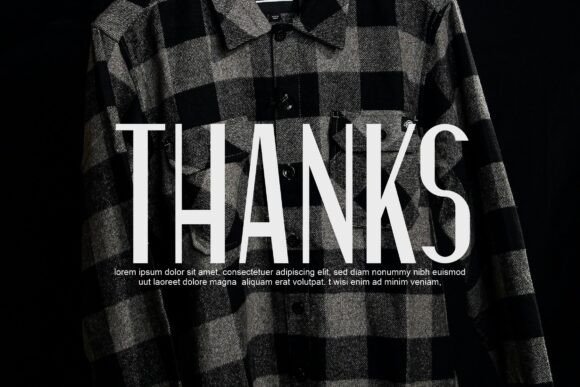
Introduction to Jorgin Font
Have you ever stared at a blank design canvas, searching for the perfect font to elevate your creative project? For designers, finding that one special font can make all the difference between a good design and a great one. It’s that moment when everything comes together, and your idea shines through with clarity and style.
That’s where the Jorgin Font comes in – a sleek, high-impact sans serif font that’s sure to command attention and leave a lasting impression. With its bold personality, tall, condensed letterforms, and geometric precision, Jorgin Font brings a contemporary sophistication to any design. Whether you’re working on a fashion branding project, creating an editorial, or designing promotional posters, Jorgin Font is the perfect design resource to take your creative vision to the next level.
Key Features of Jorgin Font
- High-quality design: Jorgin Font is a premium font designed for creative projects, offering a high level of detail and sophistication.
- Transparent background: This font features a transparent background, making it ideal for use on images with complex backgrounds.
- High resolution: Jorgin Font is designed at a high resolution, making it suitable for use in a variety of applications, including print and digital media.
- Unique characteristics: Jorgin Font features a unique, modern design that sets it apart from other fonts in its class.
- Perfect for design projects: Jorgin Font is a versatile font that can be used in a variety of design projects, from logos and branding to typography and graphics.
Honest Review: Jorgin Font
I recently stumbled upon the Jorgin Font and I must say, it’s been a game-changer for my creative projects. The free download was a huge bonus, and I was excited to see what it had to offer.
One of the things that works well is its high quality design. The font is incredibly versatile and can be used for a variety of projects, from logos to graphics. The transparent background option also makes it easy to customize and integrate into any design.
- ✨ High-quality design that’s perfect for logos, graphics, and more
- ✨ Transparent background option for easy customization
That being said, I did encounter a few limitations. The font selection is a bit limited, and I wish there were more options to choose from. Additionally, the font can be a bit too bold at times, which may not be suitable for all projects.
- ⚠️ Limited font selection
- ⚠️ Can be too bold at times
Overall, I’m really impressed with the Jorgin Font. It’s a high-quality design resource that’s perfect for my creative projects. While it has a few limitations, I would definitely recommend it to anyone looking for a reliable font.
Use Jorgin Font in headings, titles, and body text to add a touch of elegance to your designs. It’s also great for creating social media graphics, brochures, and other marketing materials. Experiment with different font sizes and colors to get the most out of this versatile design resource.